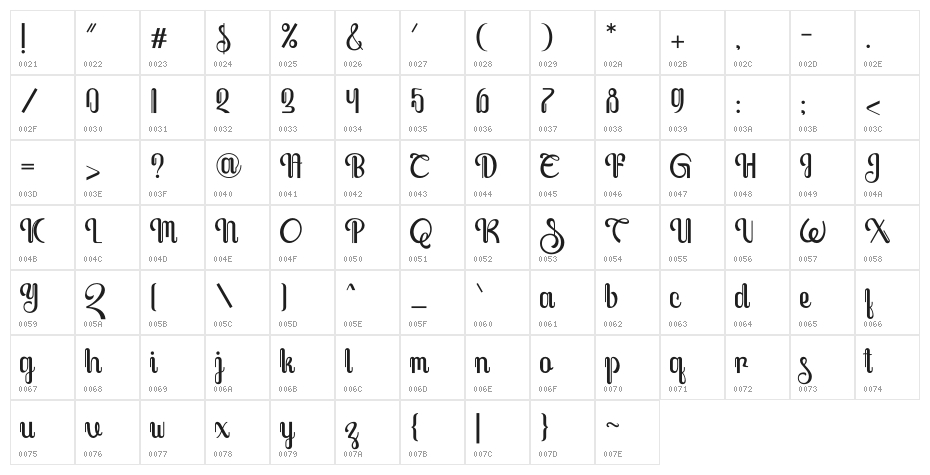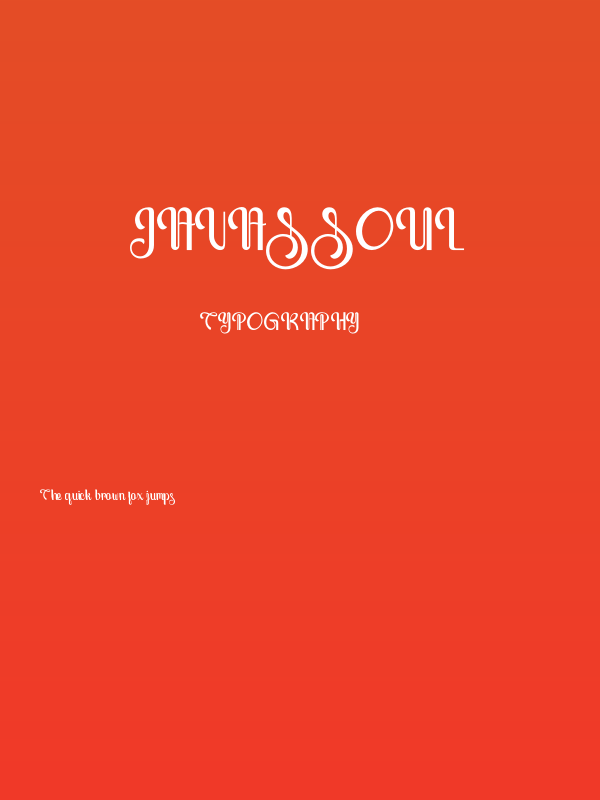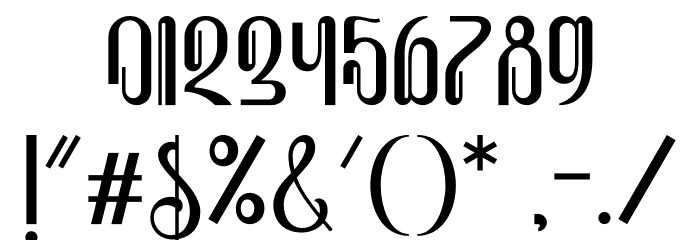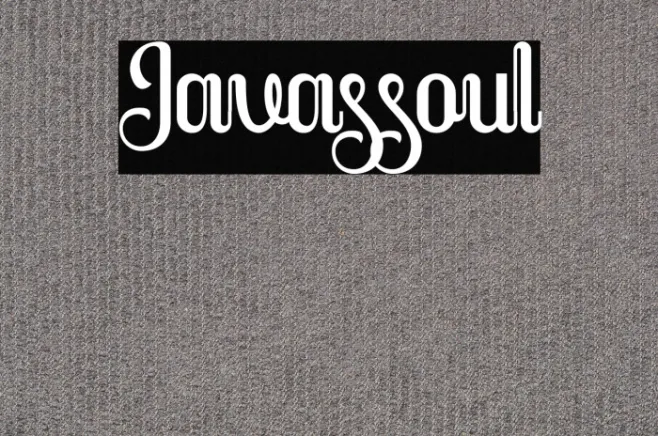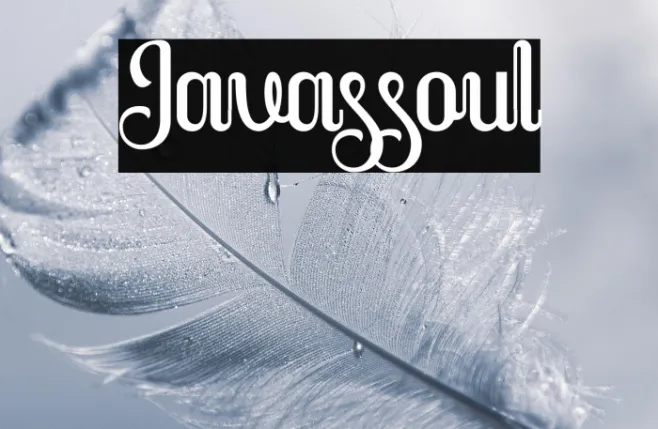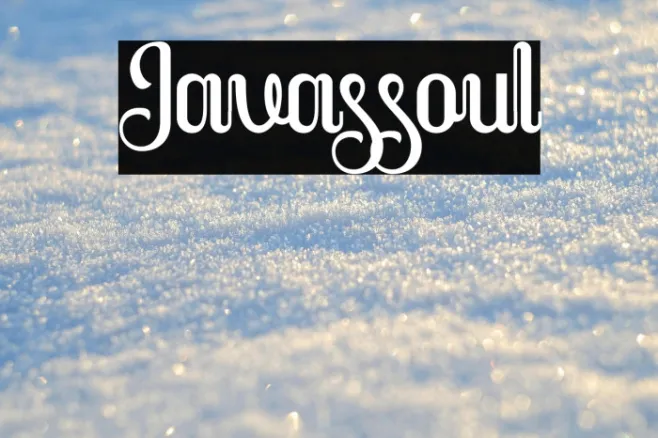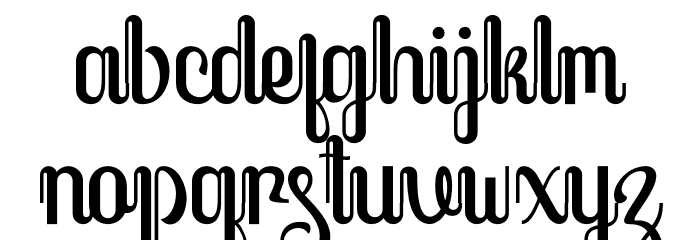
Javassoul Font
Javassoul Description
This font features a unique blend of modern and decorative elements, characterized by its flowing, interconnected strokes and elegant curves. The uppercase letters exhibit a playful yet sophisticated style, with some characters incorporating loops and swirls that add a touch of whimsy. The lowercase letters maintain a consistent rhythm, with elongated ascenders and descenders that enhance its decorative appeal. Numbers are crafted with a similar flair, ensuring a cohesive look across all characters. Special characters are thoughtfully designed to match the overall aesthetic, making this font suitable for creative and artistic projects.